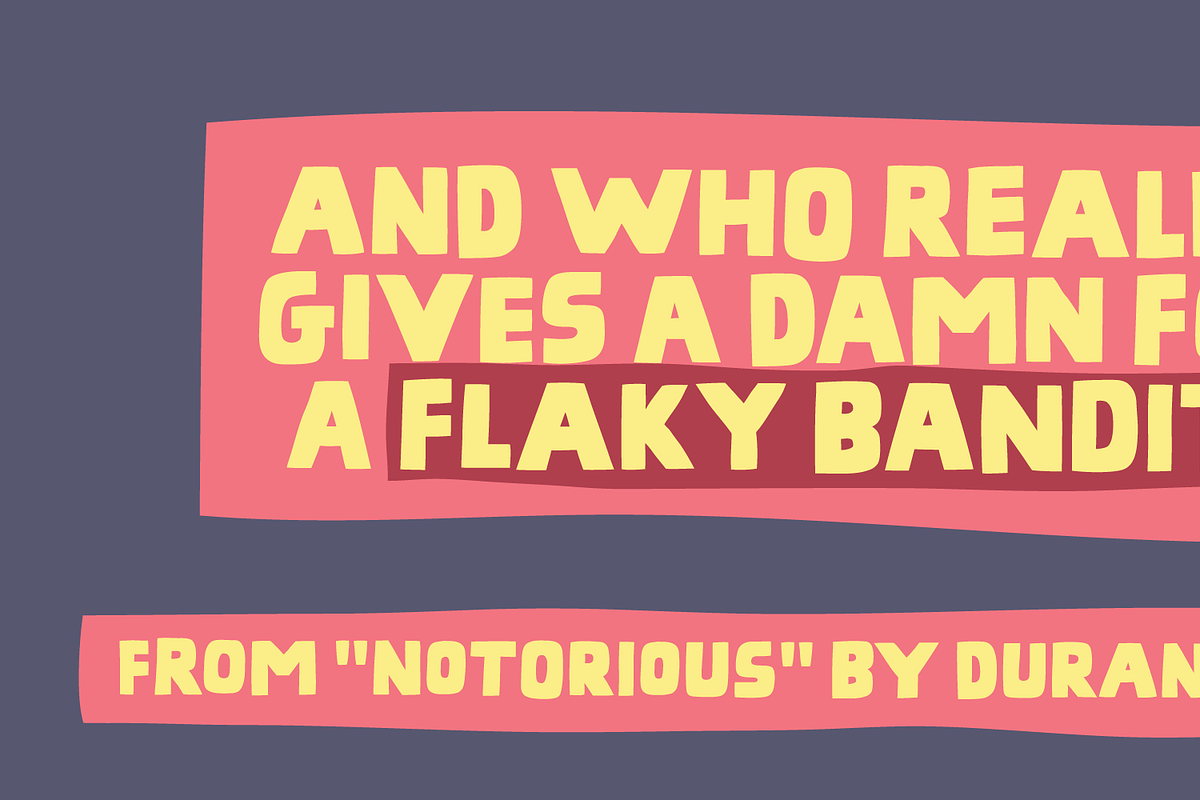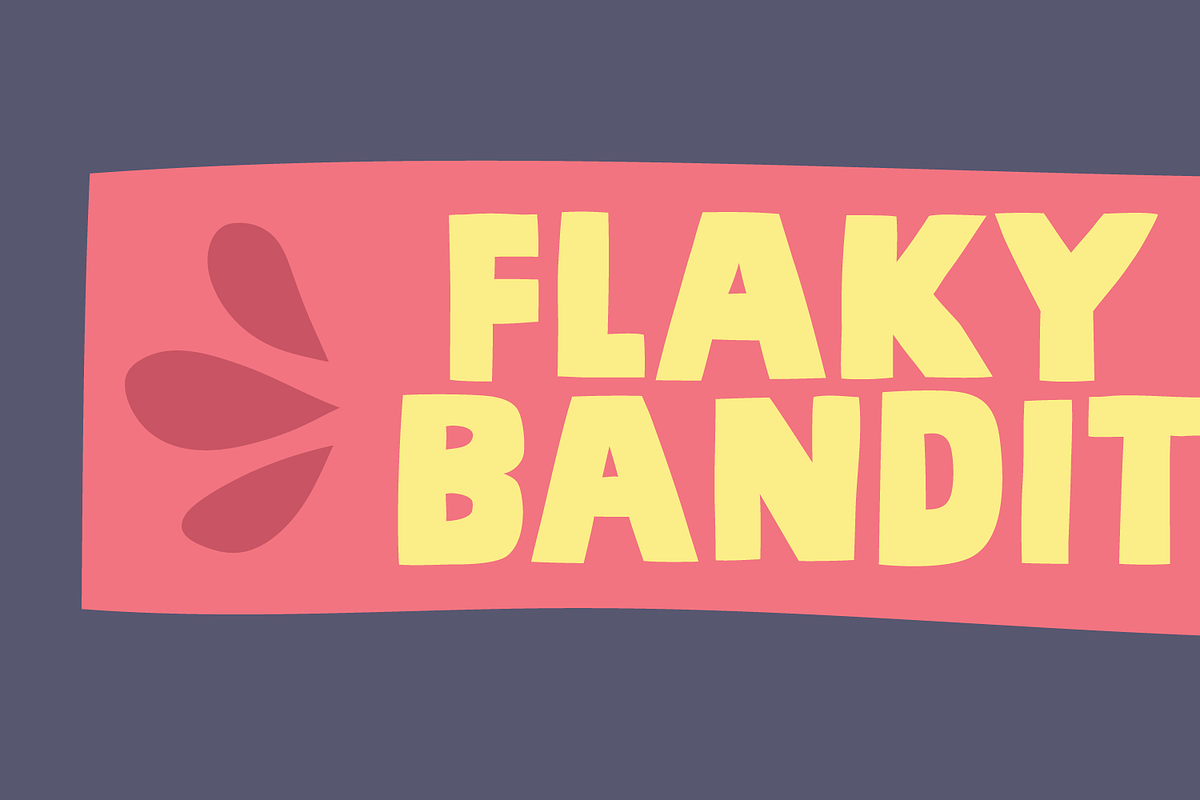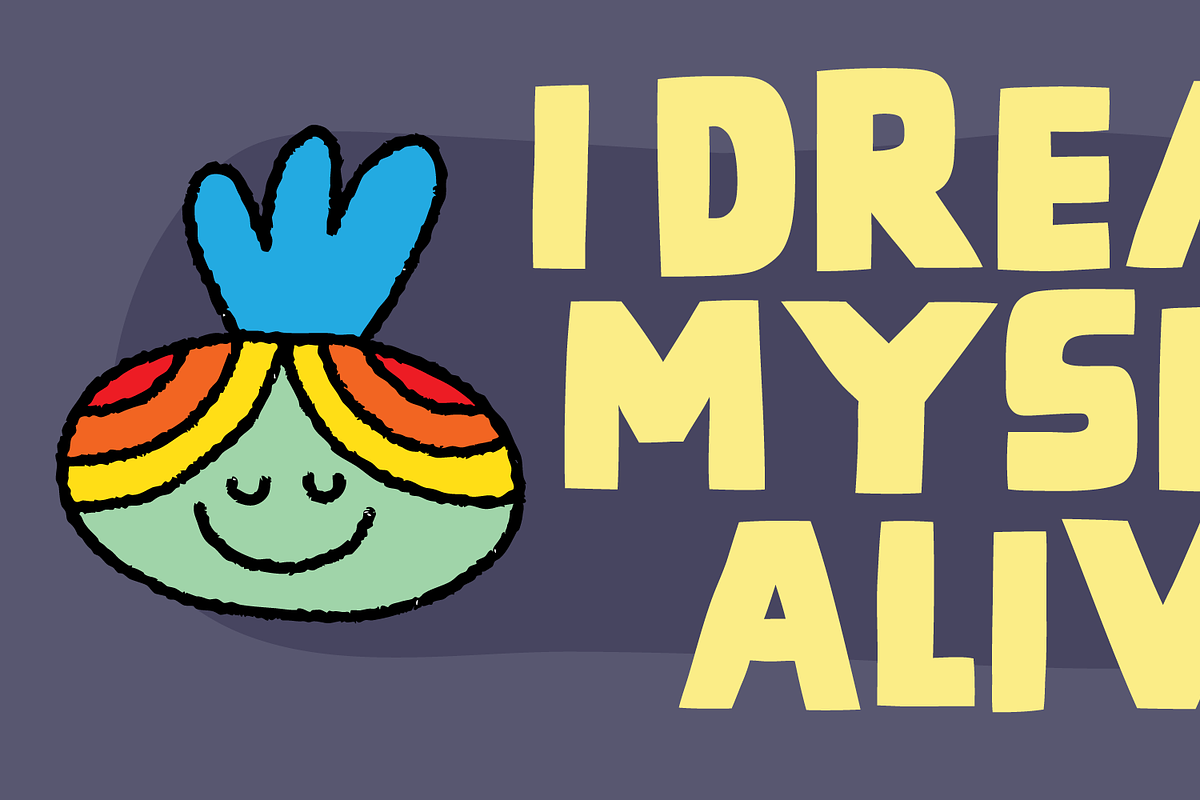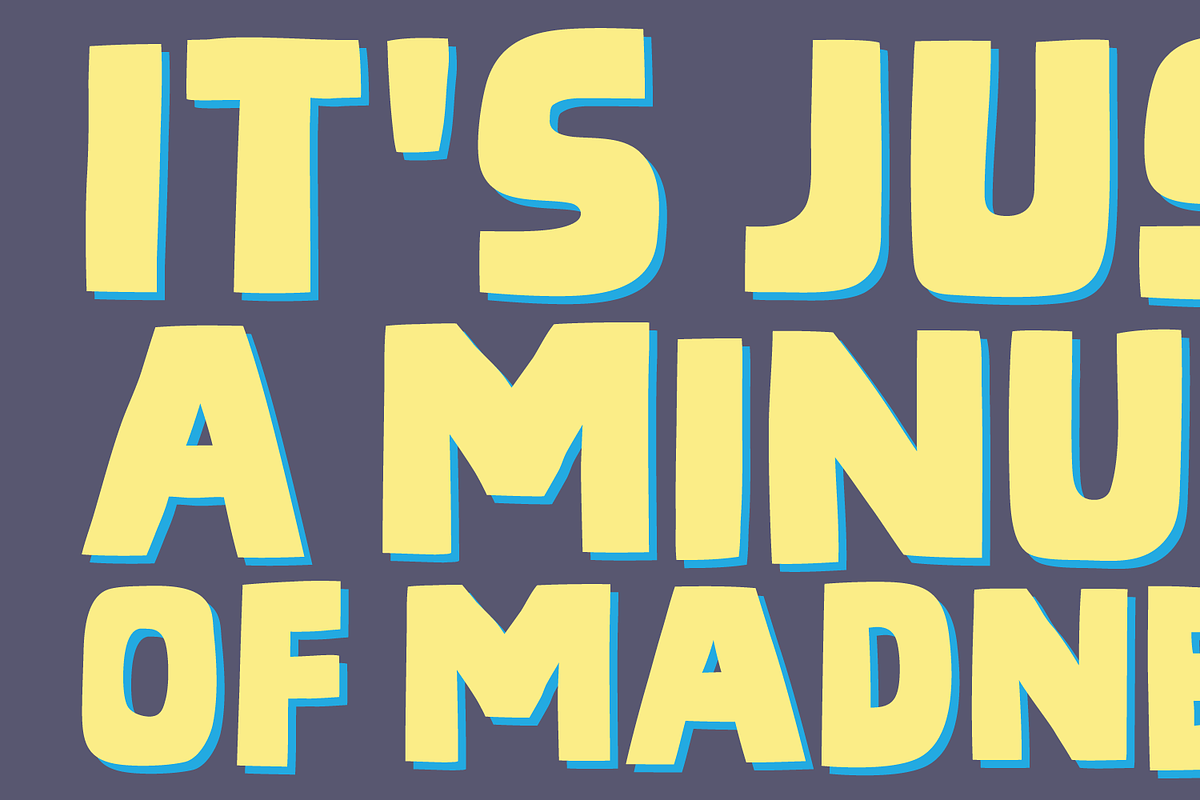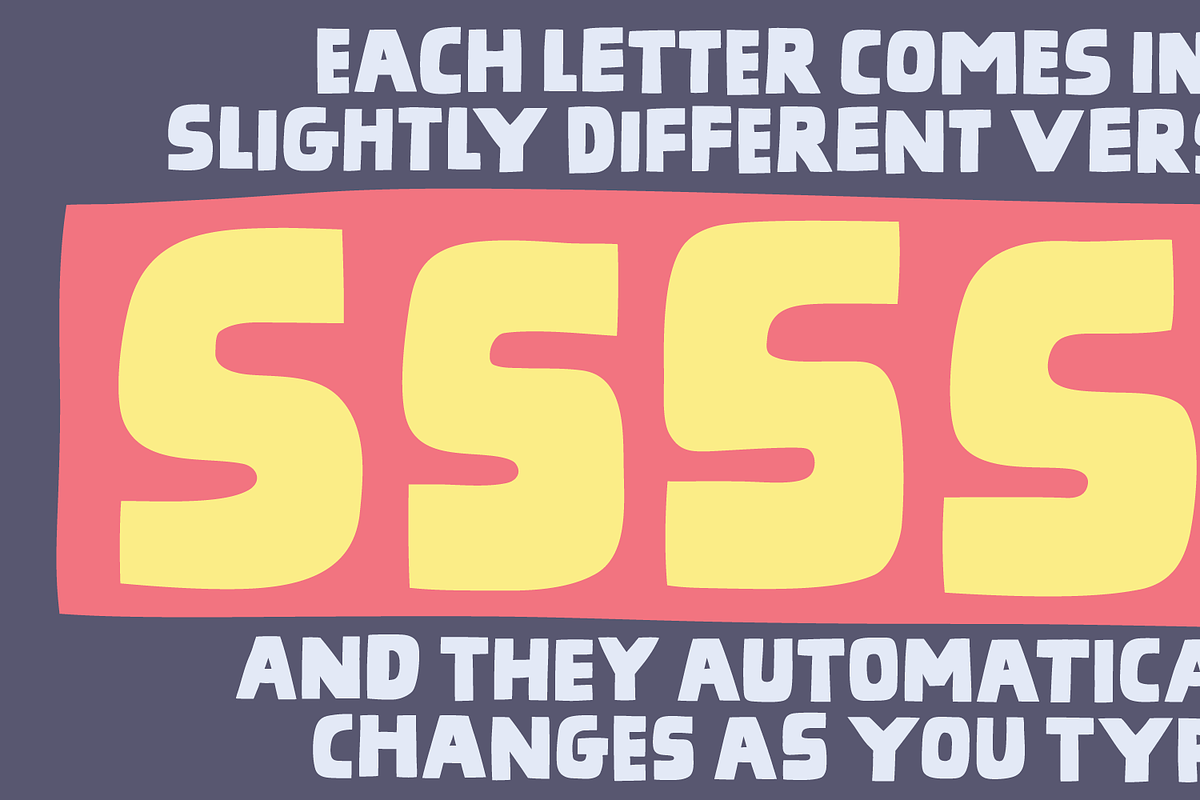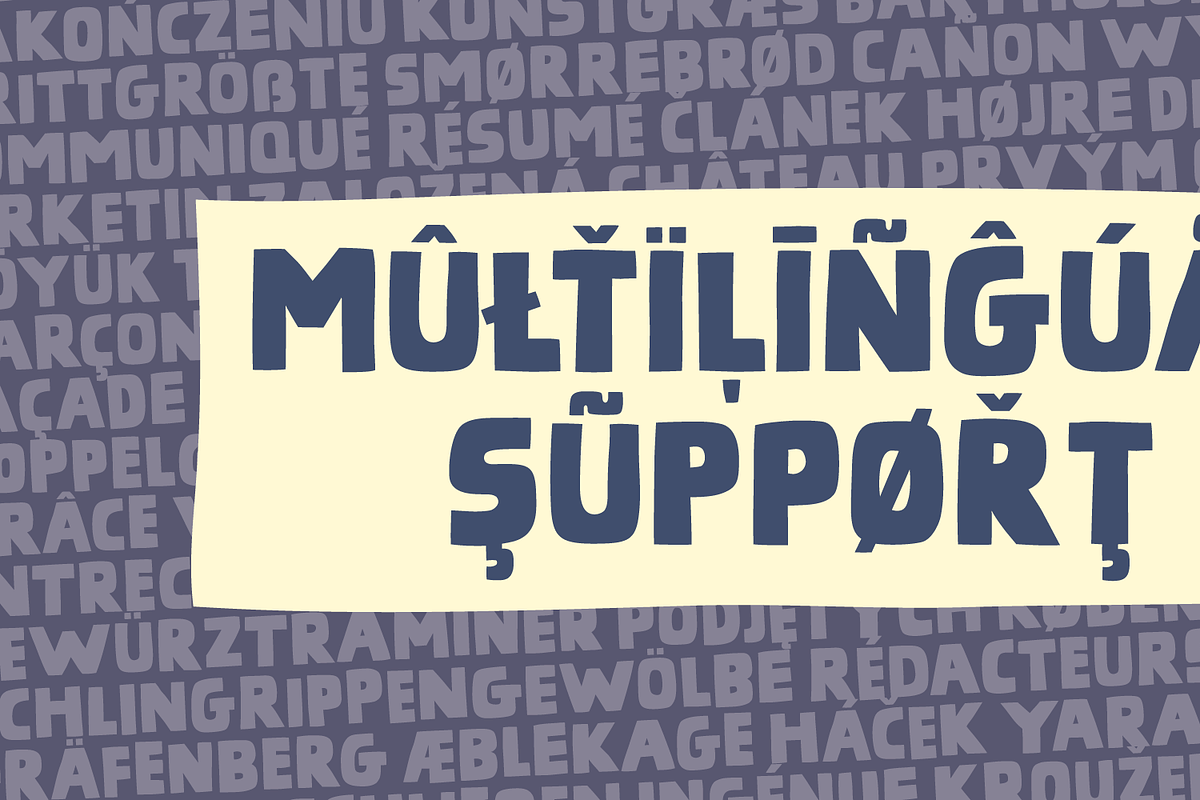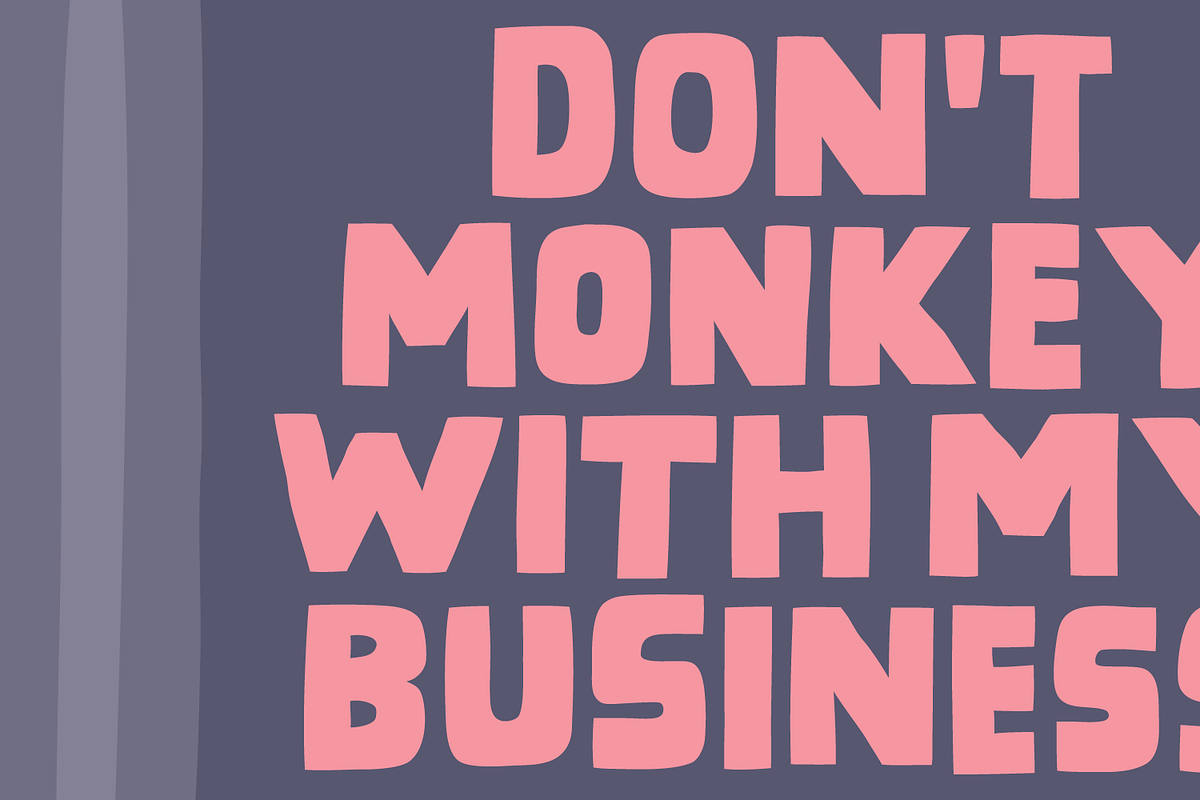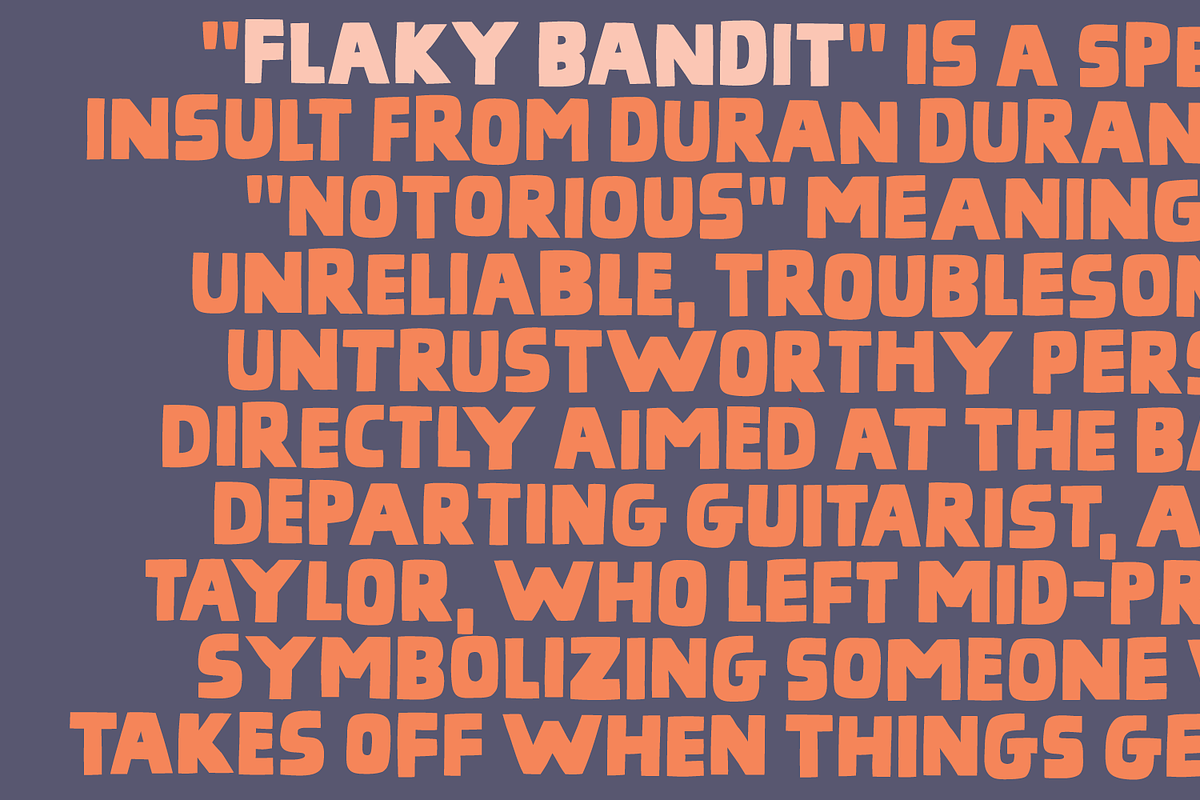
Flaky Bandit - remember to be nice!
Flaky Bandit was inspired by a lyric from the band Duran Duran, referencing member Andy Taylor's departure during an album recording. After many years, I hope they have rekindled their friendship! This inspiration led me to create an all-caps graffiti-inspired font. The letters are thick and easy to read, featuring a distinct handmade design. I've crafted five slightly different versions of each letter, which automatically change as you type, providing a dynamic and organic appearance!